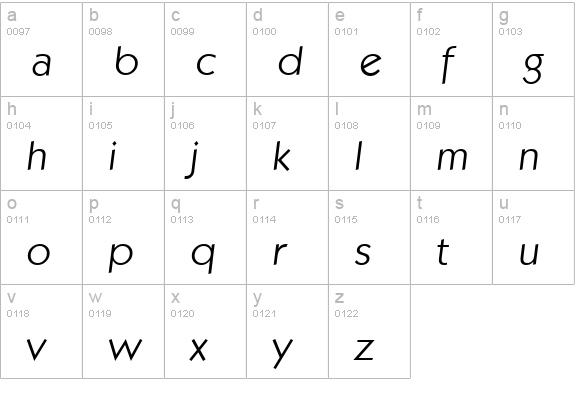
KoblenzSerial-Light-Italic is a refined, elegant, italic variant in the KoblenzSerial typeface family \xE2\x80\x94 well suited to elegant body text, refined sub-headings, and luxury branding.
KoblenzSerial-Light-Italic is a sleek and elegant font that exudes sophistication and modernity. With its delicate and stylish italic design, this font is perfect for adding a touch of sophistication to any project. The light weight of the font gives it a subtle and refined appearance, making it ideal for use in various design applications. What sets KoblenzSerial-Light-Italic apart is that it is available for free download at FontsMarket.com. This means that you can easily access this high-quality font without any cost, making it a valuable addition to your font collection. Whether you're working on a branding project, creating invitations, or designing a website, KoblenzSerial-Light-Italic is a versatile and elegant choice that will elevate your design to the next level.